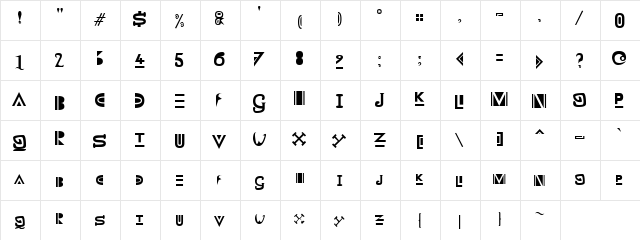
Output Regular
Design Context for Output Typeface
Output is a composed and adaptable typeface that performs quietly and consistently across a wide range of design contexts.
Pro Tip: Use Output in both headline and body roles to test its range before committing to a single application.